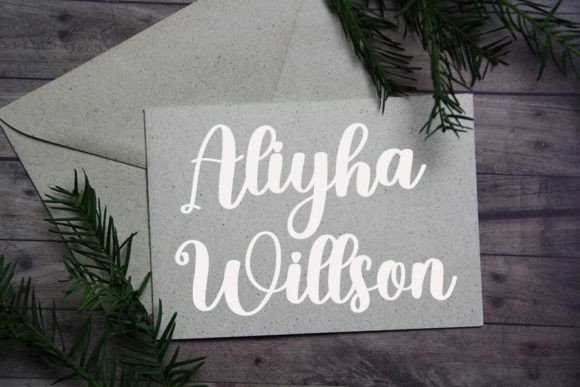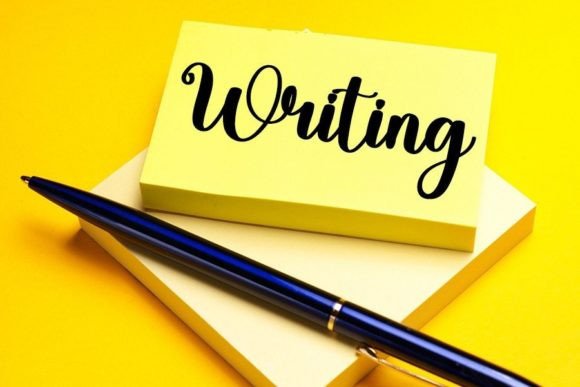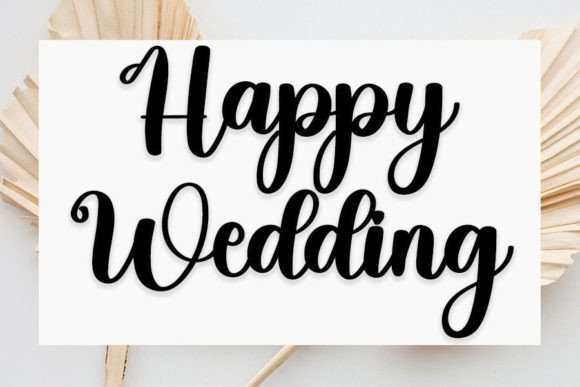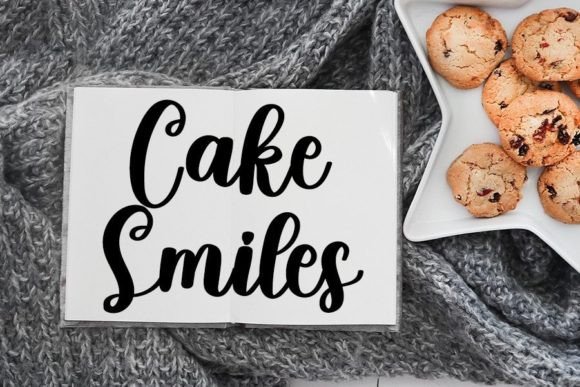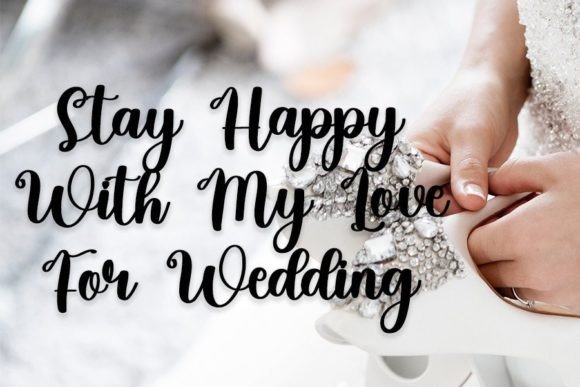
Bride Font: Elevate Your Designs with Timeless Elegance
In the world of typography, few fonts capture the essence of elegance and sophistication as perfectly as the Bride Font. This stylish handwritten font is a masterpiece of modern calligraphy, blending contemporary flair with timeless classic charm. Designed to enhance the beauty of your projects, Bride Font is a versatile and impeccably crafted typeface that is sure to leave a lasting impression.
The Inspiration Behind Bride Font
Bride Font draws inspiration from the classic calligraphy of the past, yet presents itself with a distinctly modern twist. Its creator aimed to craft a font that embodies the perfect balance between tradition and innovation, making it suitable for a wide range of design applications. From wedding invitations and branding to packaging and digital media, Bride Font’s versatility knows no bounds.
Key Features of Bride Font
- Contemporary Atmosphere: Despite its classic roots, Bride Font boasts a fresh and modern look that sets it apart from more traditional typefaces.
- Impeccable Form: Each letterform in Bride Font is meticulously designed to ensure clarity, elegance, and a high level of readability.
- Balanced and Varied: The font features a range of weights and styles, allowing designers to experiment with different looks and tones to find the perfect fit for their project.
- Handwritten with Flair: The subtle imperfections and fluidity of Bride Font give it a warm, personal touch that digital fonts often lack.
Why Choose Bride Font?
For designers and crafters looking for a font that can add a touch of sophistication and elegance to their work, Bride Font is an excellent choice. Here are a few reasons why:
- Universal Applicability: Whether you’re working on a wedding invitation, a fashion brand’s logo, or a personal craft project, Bride Font can adapt to any design need.
- Easy to Read: The clear and flowing design of Bride Font ensures that your message is conveyed with clarity and style.
- Customizable: With its range of weights and potential for alteration, Bride Font can be tailored to suit the specific requirements of your project.
- Time-Saving: Having a high-quality, ready-to-use font like Bride Font can significantly streamline your design process.
Using Bride Font in Your Projects
- Wedding and event planning materials
- Fashion and beauty branding
- Stationery and greeting cards
- Digital media, including social media graphics and website headers
Bride Font is more than just a typeface; it’s a design tool that can elevate your work to new heights of elegance and sophistication. Its unique blend of classic inspiration and modern flair makes it a valuable asset for designers and crafters looking to make a statement. With its impeccable form, versatility, and ease of use, Bride Font is poised to become a favorite in your typography arsenal.
Whether you’re a seasoned designer or a DIY crafter, Bride Font offers the perfect combination of style, functionality, and inspiration to bring your projects to life. So why settle for ordinary when you can make your designs truly extraordinary with Bride Font?